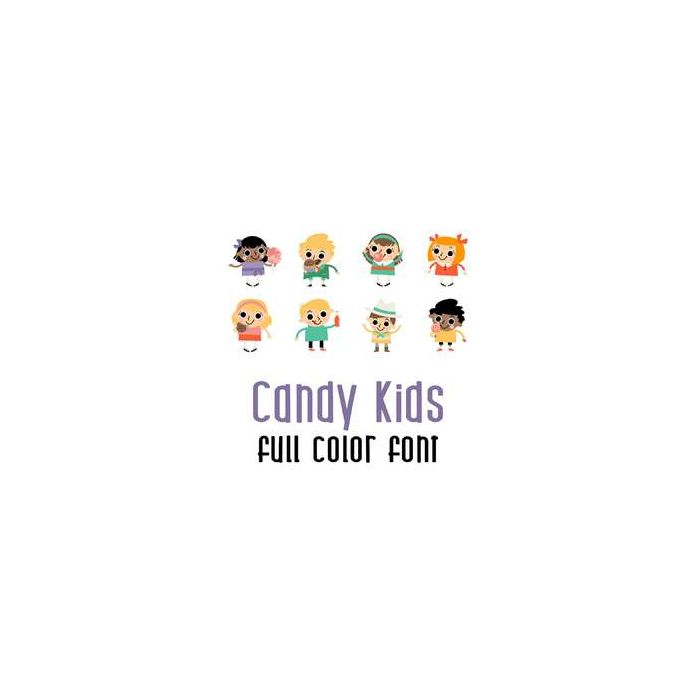
This adorable full color doodlebat font features cute retro styled kids in candy heaven. Perfect for cards, crafts, gifts, decor, scrap book pages, planner stickers and more!